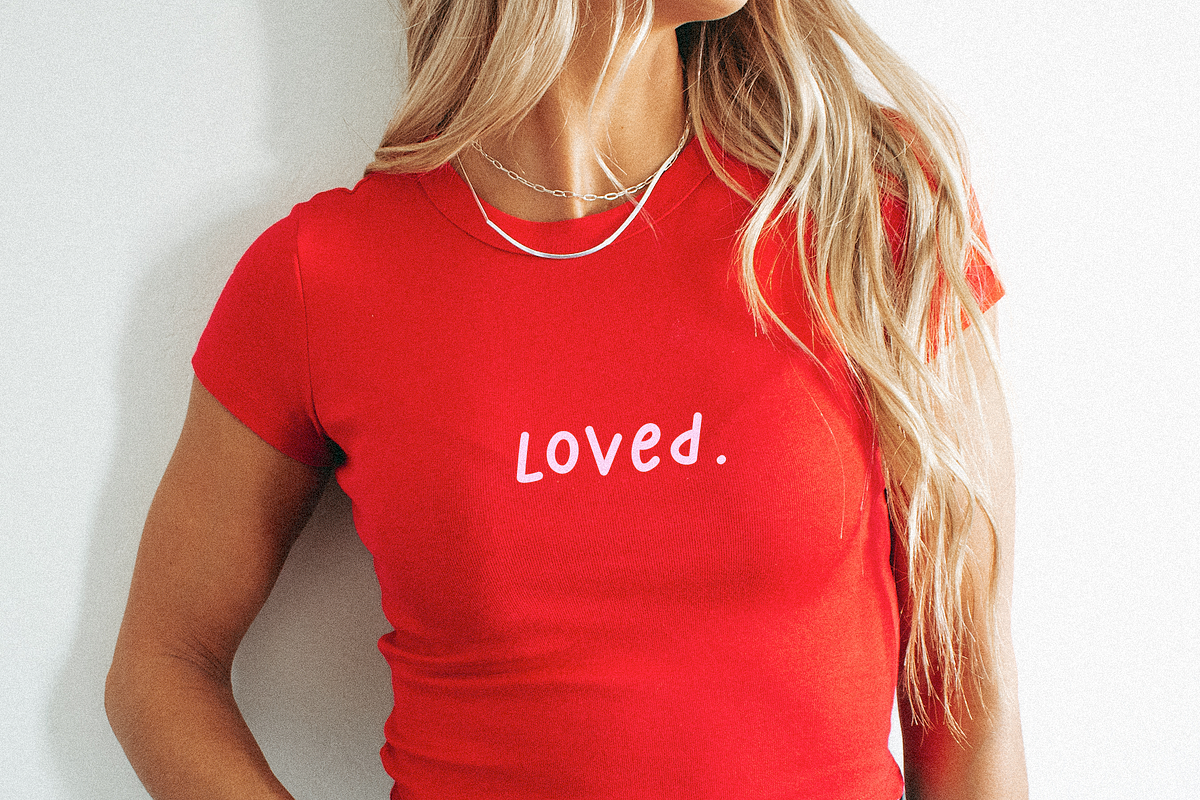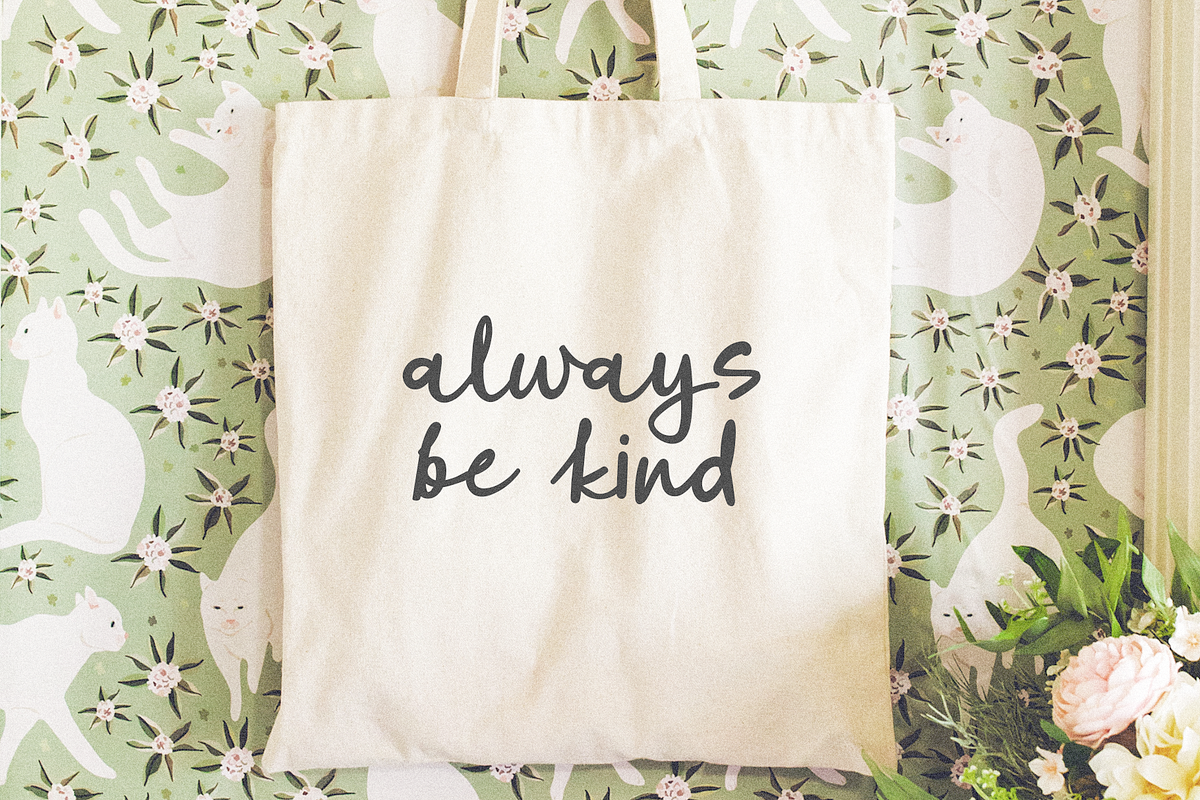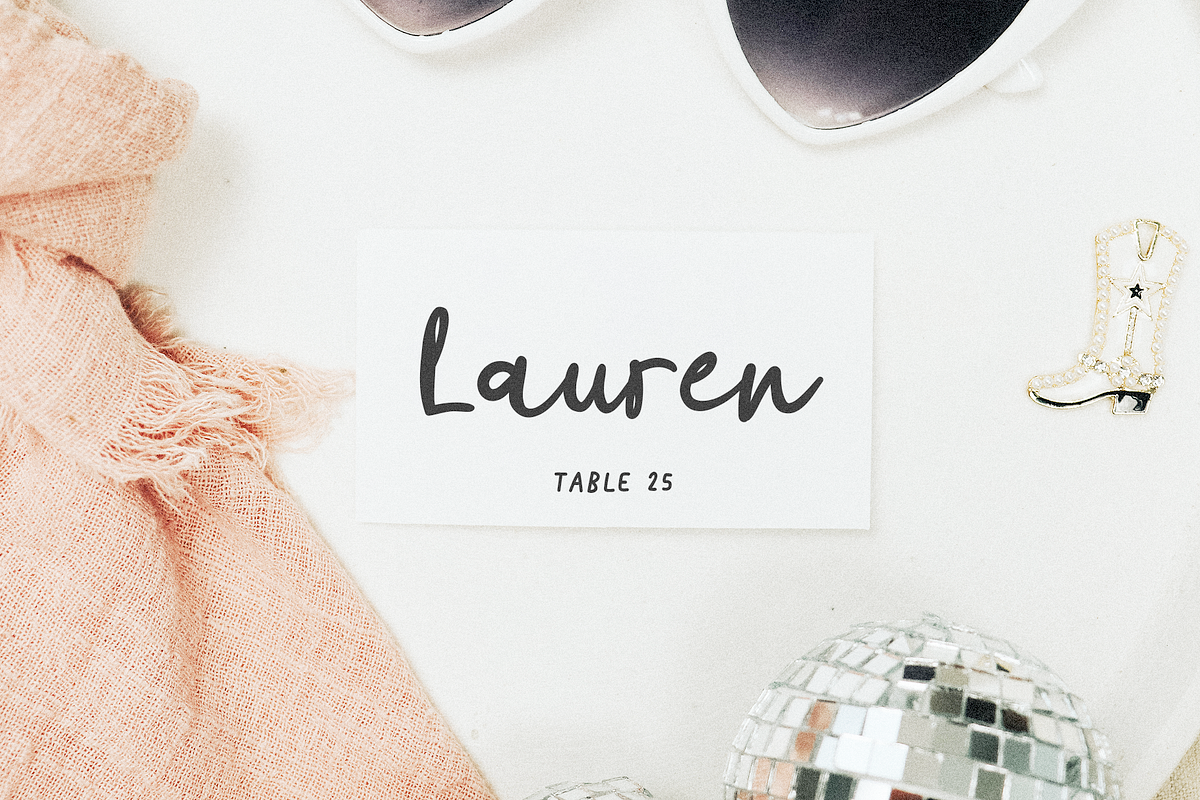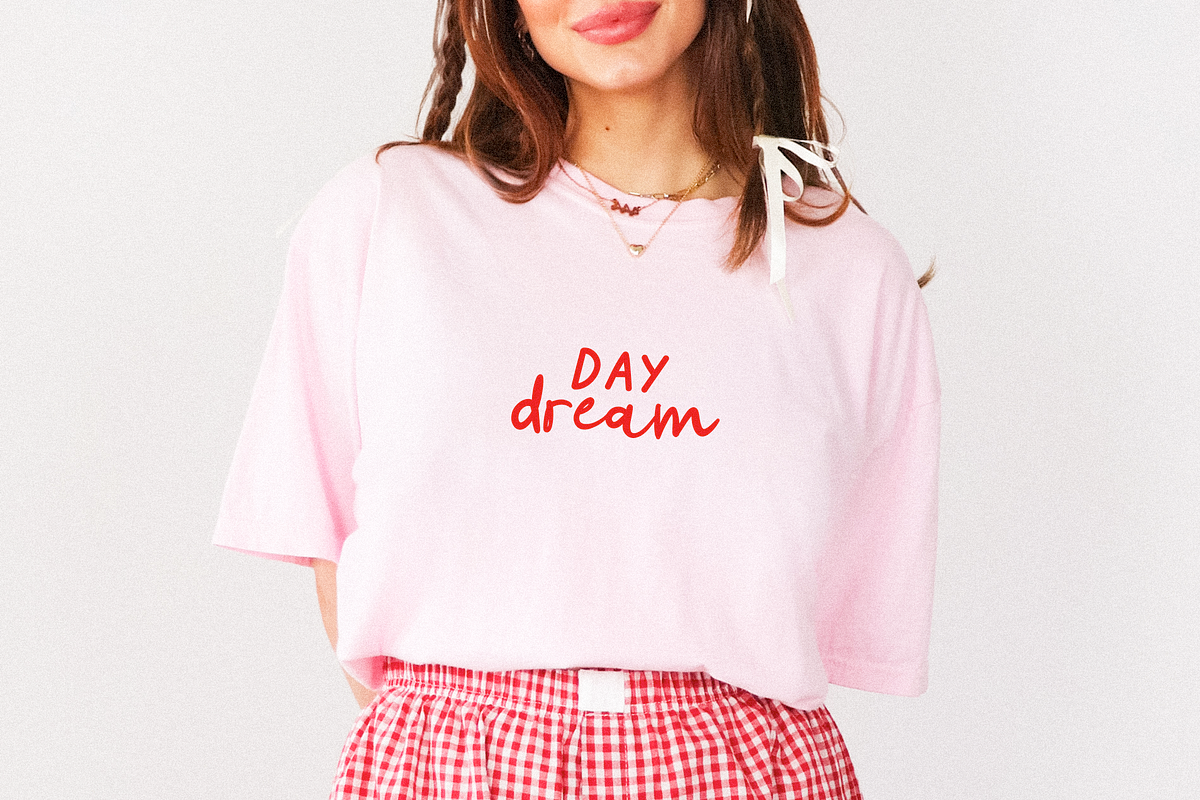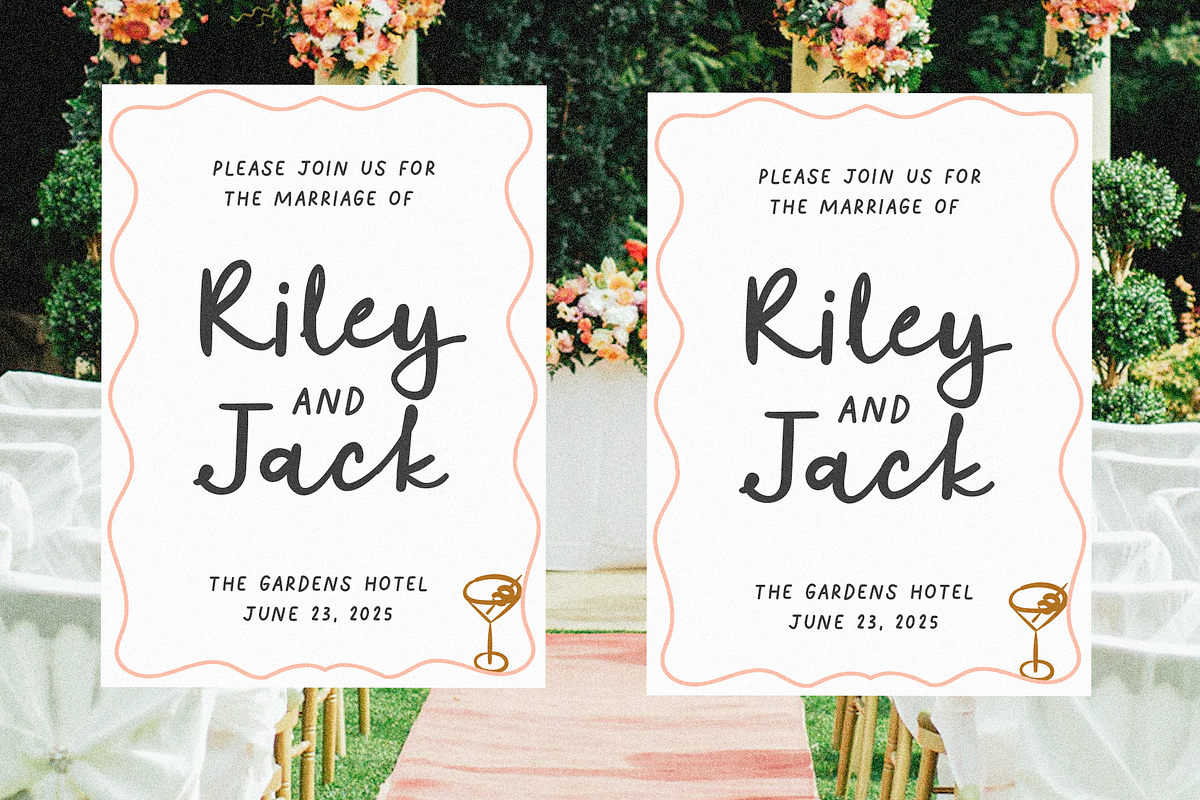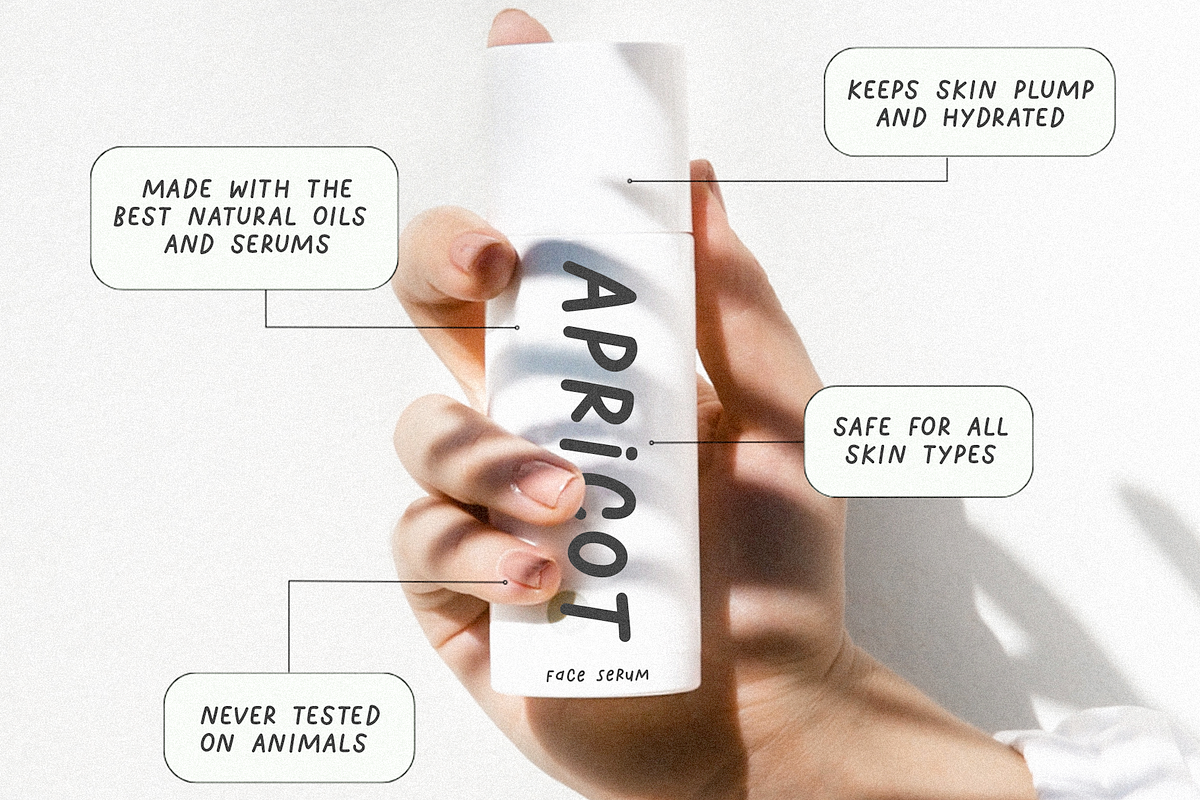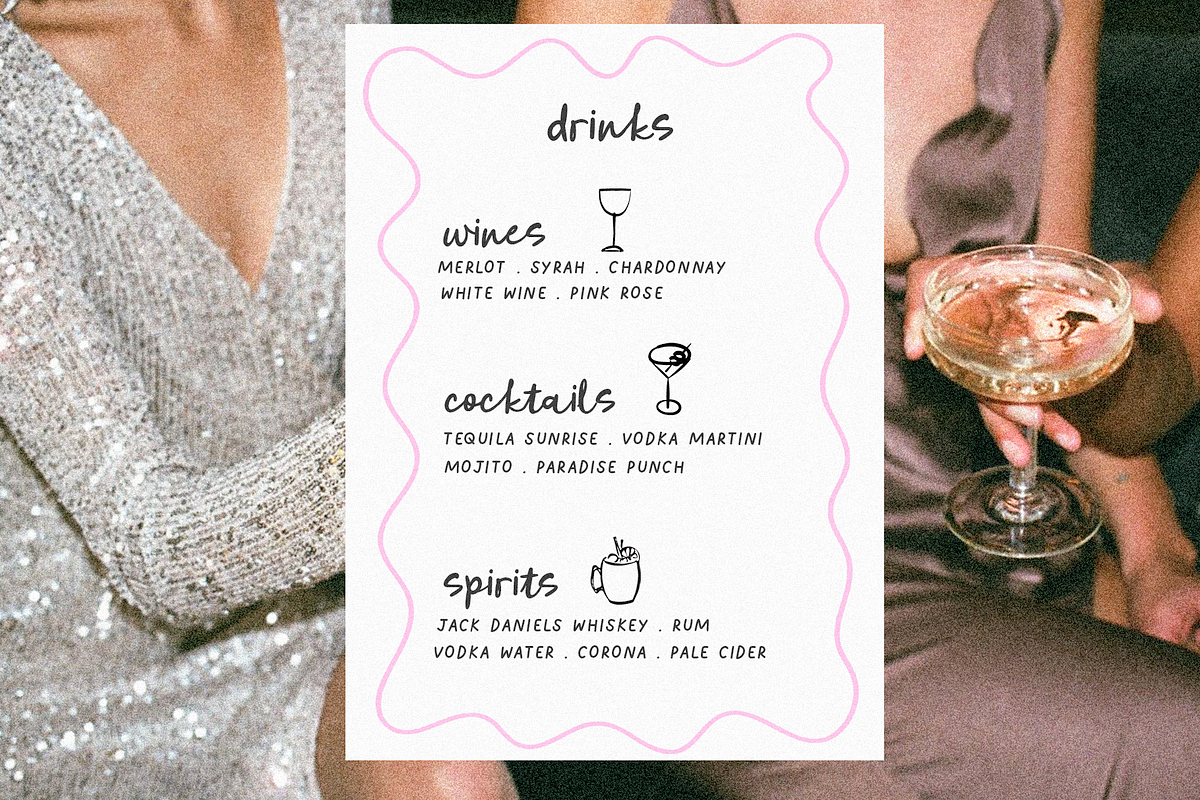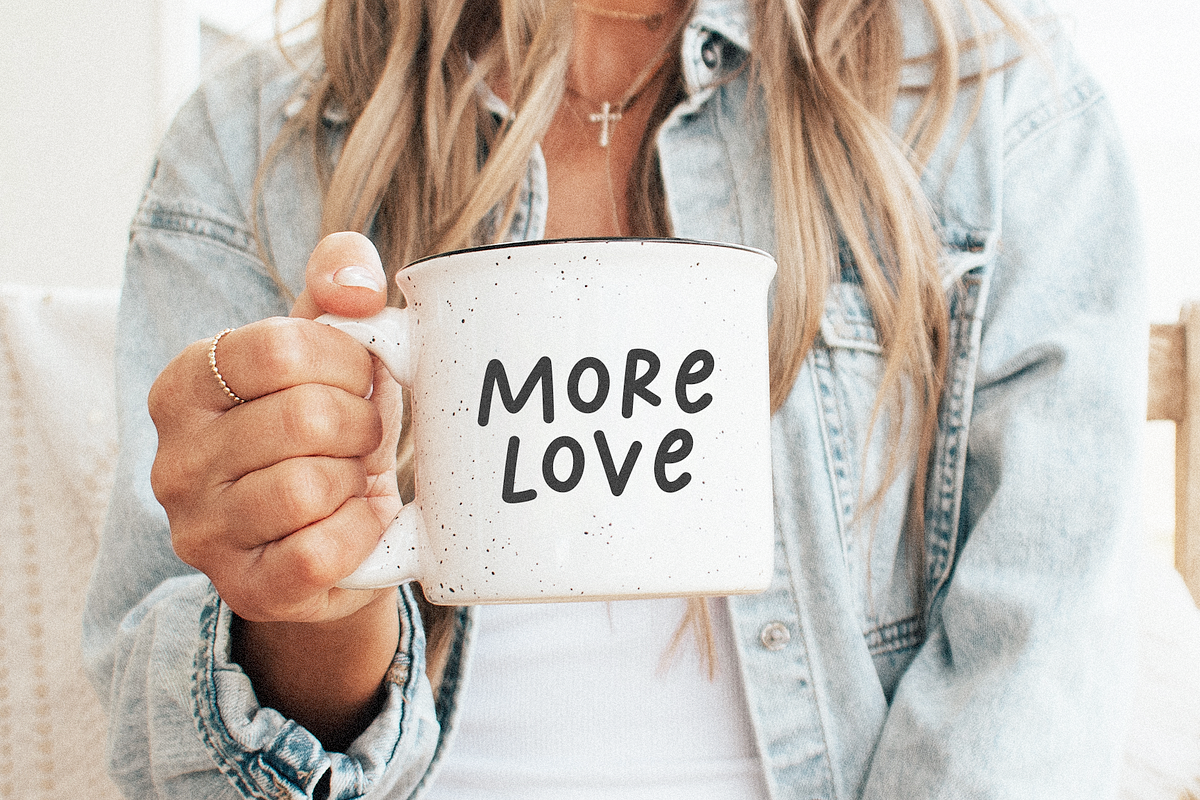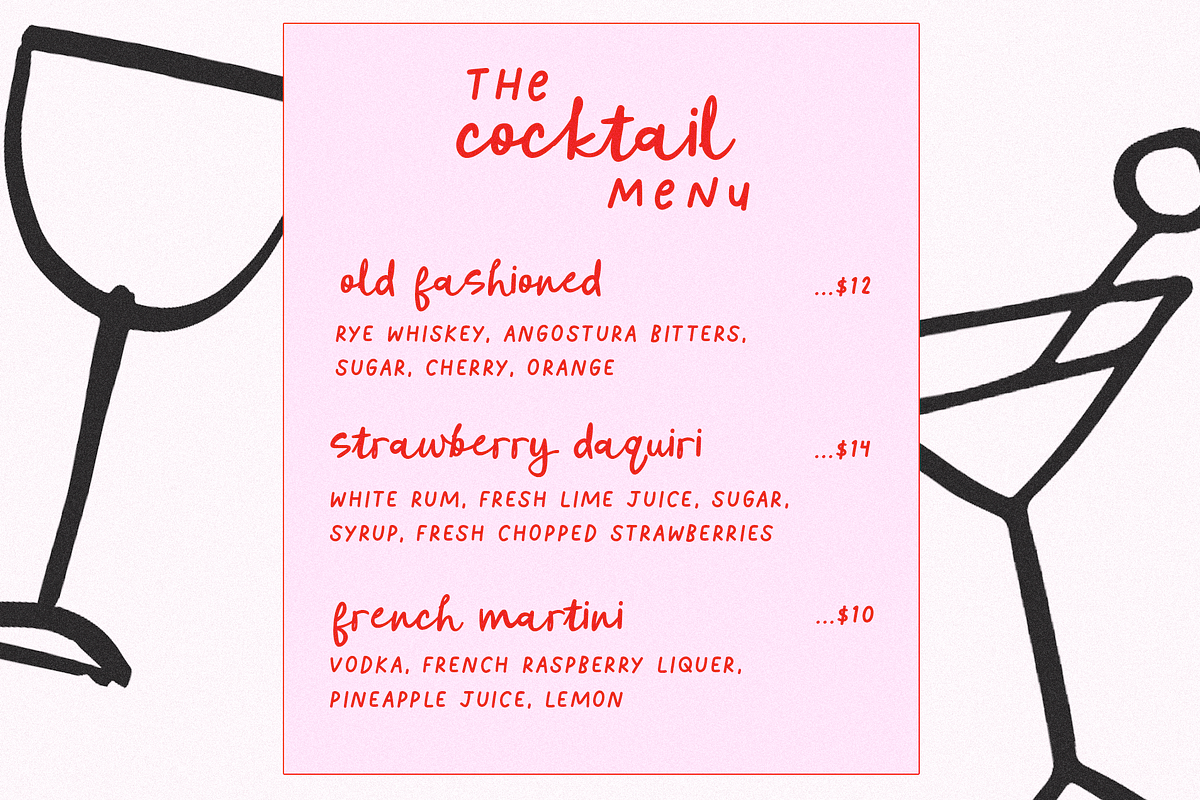
Wild Tansy Font Duo
Wild Tansy is a handwritten whimsy duo.
This duo includes a "messy" script and handwritten sans.
Wild Tansy is perfect for wedding decor, invitations, whimsy designs, place cards, signs, logos, quotes, goodnotes, social media, branding, shirts, canva, cricut projects and more!